1. Introduction Open-Source Fonts Download
Open-Source Fonts Download In today’s fast-moving digital design world, choosing the right typeface can transform the look and feel of your project. With thousands of fonts available online, open-source fonts have become a go-to option for designers seeking high-quality typography without licensing limitations.
Whether you’re working on branding, packaging, UI design, or editorial projects, finding the perfect Open-Source Fonts Download can boost your creativity and streamline your workflow. This article will guide you through everything you need to know—including trusted sources, benefits, and recommended options from Edric Studio.
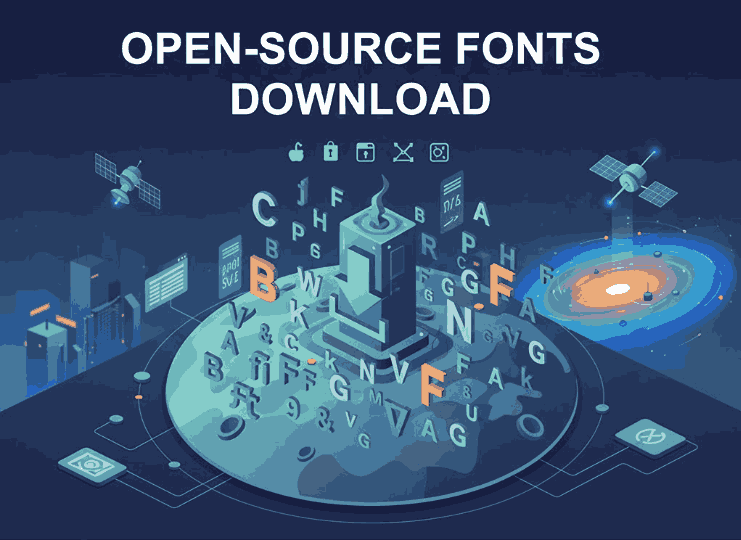
2. What Are Open-Source Fonts Download?
3. Why Designers Prefer Open-Source Fonts Download
There are several reasons why open-source fonts have become crucial in modern design:
✔ High-quality craftsmanship
Many open-source fonts are created by professional type designers or major organizations like Google, Adobe, and IBM.
✔ Customization freedom
You can tweak the font’s curves, spacing, weight, or even create your own variation.
✔ Perfect for branding and long-term projects
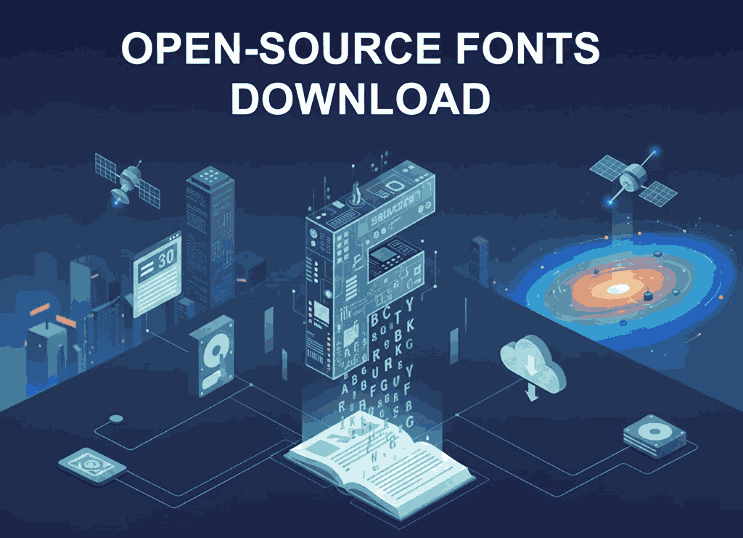
6. Recommended Open-Source Fonts Download Examples from Edric Studio
A bold, experimental display typeface perfect for posters and strong branding.
✔ Strange Cool Font
A clean, contemporary sans serif great for UI design, apps, and websites.
✔ Orleon Sleeker Font
A sleek and modern sans-serif typeface suitable for headlines and product packaging.
✔ Feliciana Handwritten Font
A natural and stylish handwritten typeface ideal for packaging, branding, and lifestyle design.
These examples help readers visually understand modern type styles and how they might use open-source fonts in similar categories.
7. How to Choose the Right Open-Source Fonts Download
When selecting a font, consider the following factors:
1. Purpose & mood
Does your project require elegance, modernity, friendliness, or authority?
2. Readability
Check whether the typeface is easy to read at small and large sizes.
3. Character support
If your audience speaks multiple languages, look for extended Latin or multilingual support.
4. License
Always ensure the license allows commercial use. The SIL OFL is the safest for business projects.
9. Final Thoughts Open-Source Fonts Download
Open-source fonts empower designers with flexibility, creative freedom, and cost-efficiency. With reputable resources like Google Fonts, SIL, and GitHub, you can confidently download and use high-quality typography for any project.